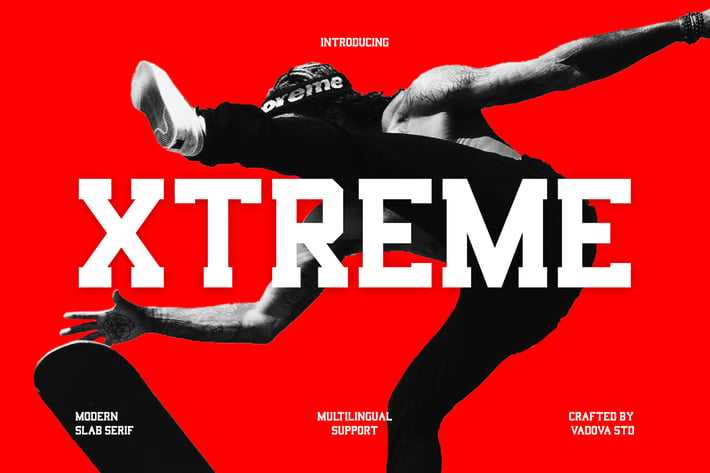
Xtreme Serif Font
Xtreme is a dynamic slab serif font with a retro edge and condensed proportions, perfect for high-impact sports, and youth culture visuals. With strong letterforms and rugged appeal, it brings attitude and intensity to posters, banners, and skate or action sports graphics. Whether you're designing for extreme events or urban campaigns, Xtreme delivers bold presence and energetic character in every application.
Uppercase & Lowercase characters
* Numeral & Punctuations